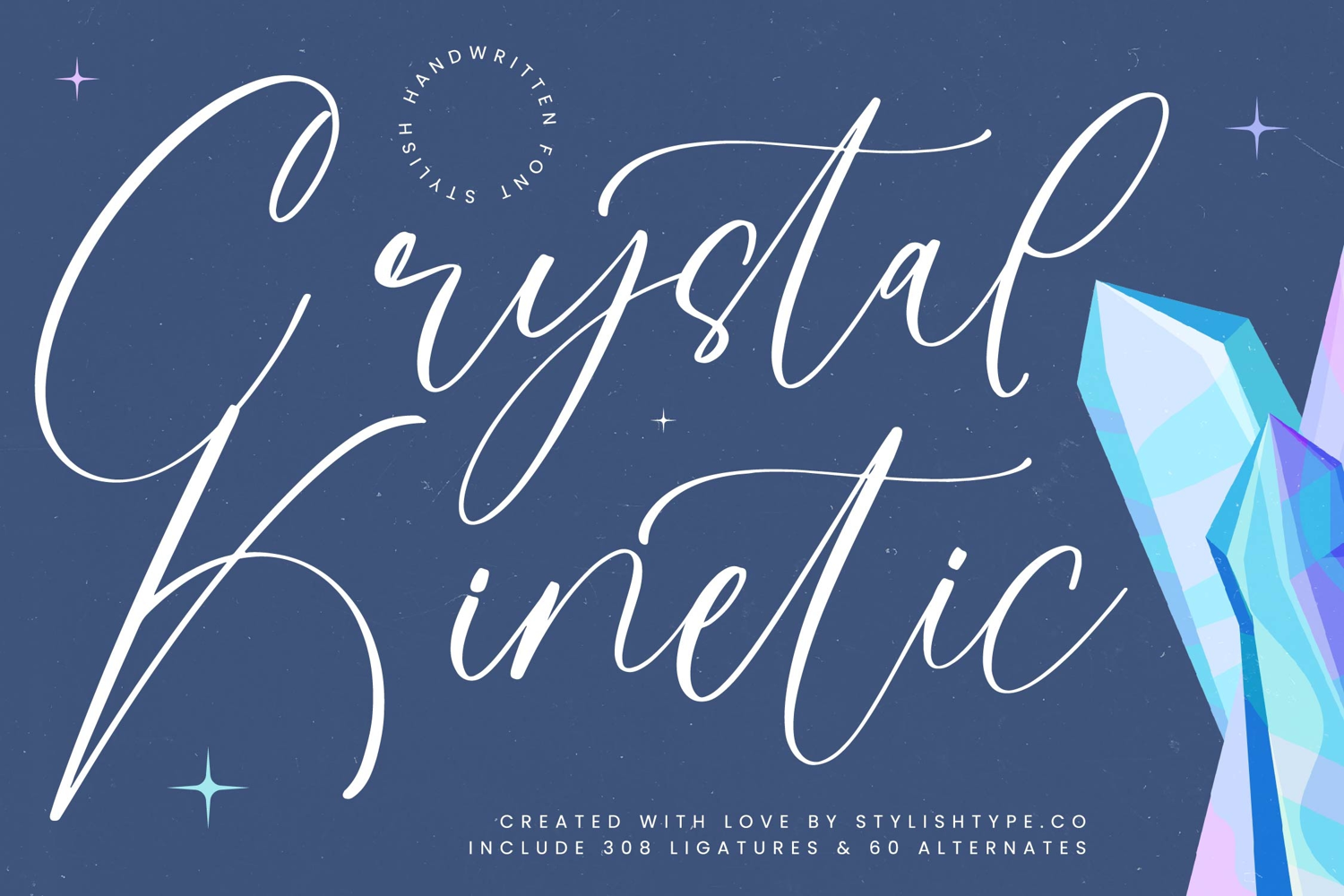
Crystal Kinetic - Stylish Handwritten Font
Crystal Kinetic
Crystal Kinetic Italic
Crystal Kinetic - Stylish Handwritten Font allows designers to achieve truly customized and non-repetitive script lettering. These comprehensive glyph sets ensure a natural, organic flow, mitigating the mechanical look often found in standard script fonts. It is the ultimate tool for creating bespoke typographic solutions that feel authentic and handcrafted.